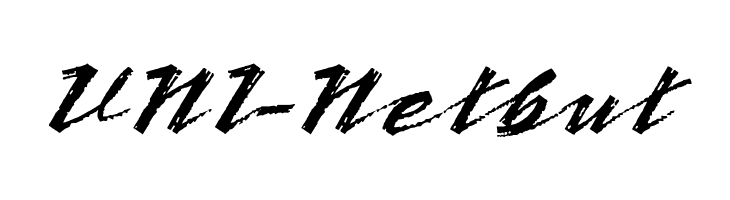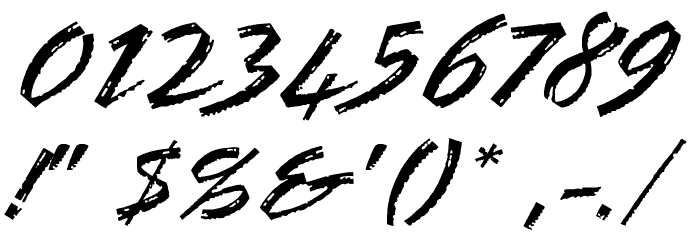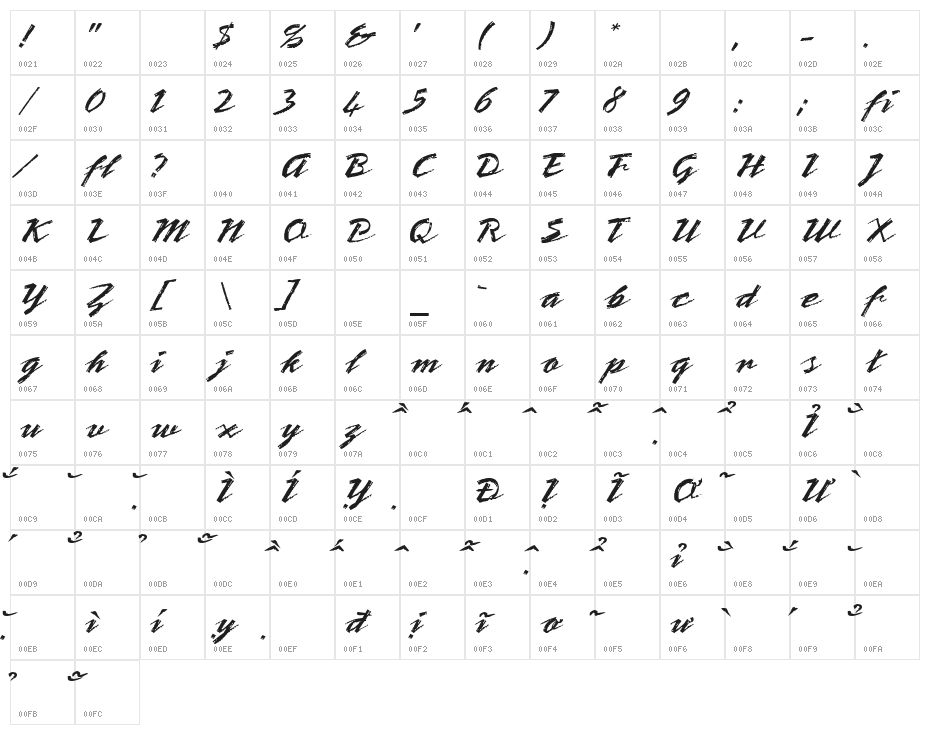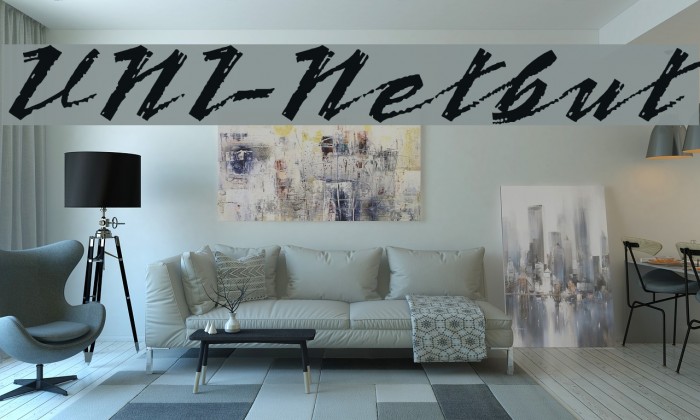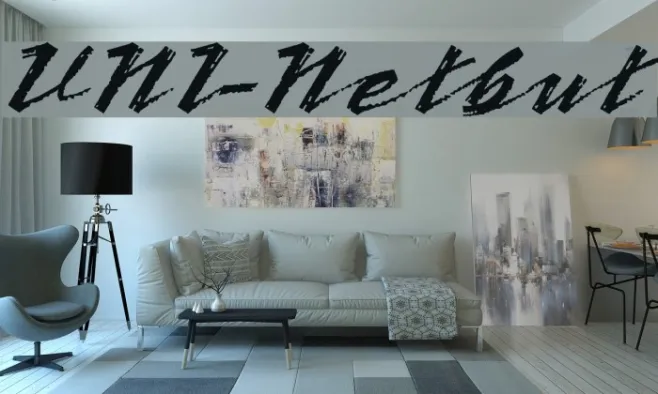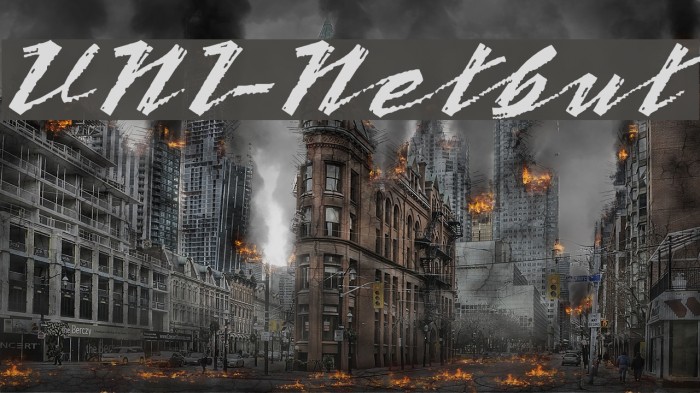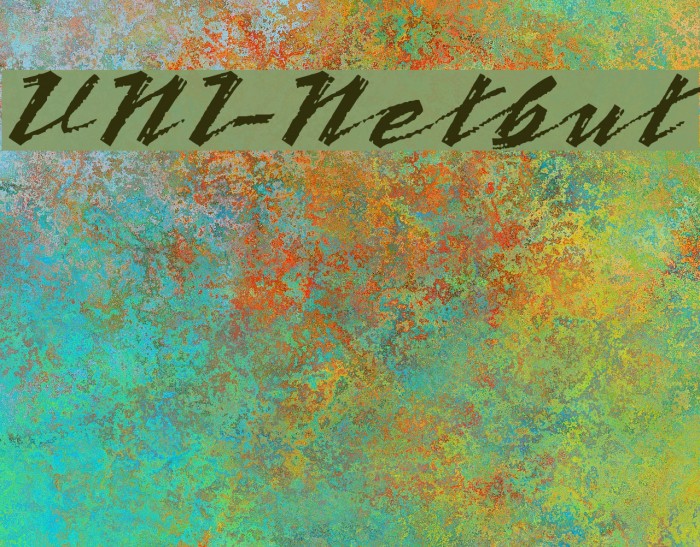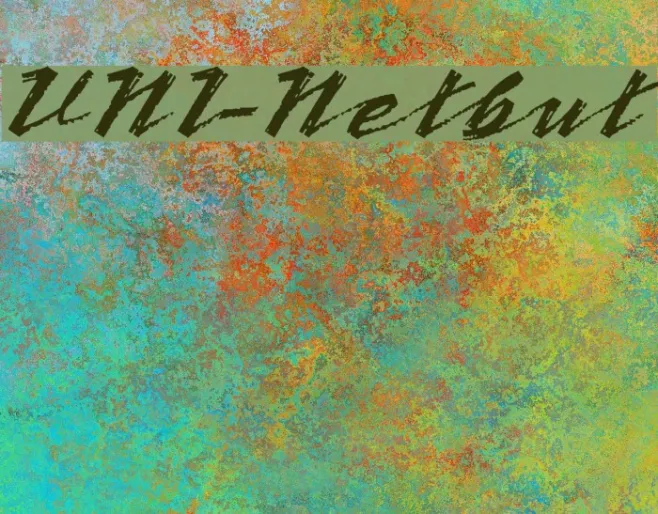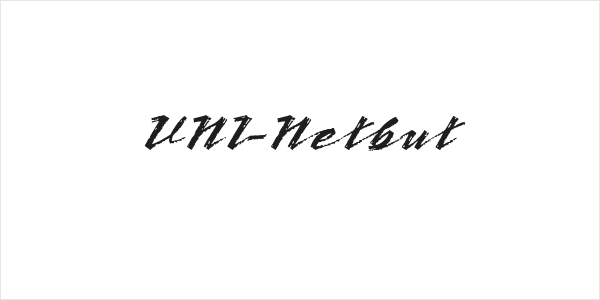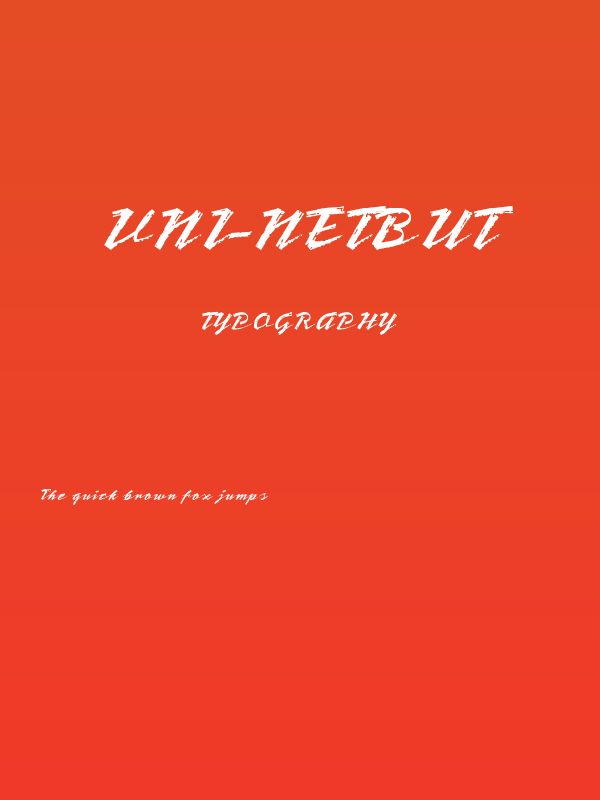
VNI-Netbut Font
VNI-Netbut Description
This font features a dynamic and expressive style with a handwritten appearance. The characters are slanted, giving a sense of motion and fluidity. The strokes are bold and textured, resembling brush strokes with a slightly rough edge, adding a touch of artistic flair. The uppercase and lowercase letters maintain a consistent style, with the uppercase being slightly larger and more pronounced. The numerals and special characters follow the same design principles, ensuring uniformity across all glyphs. This font is ideal for projects that require a personal touch or an artistic vibe.